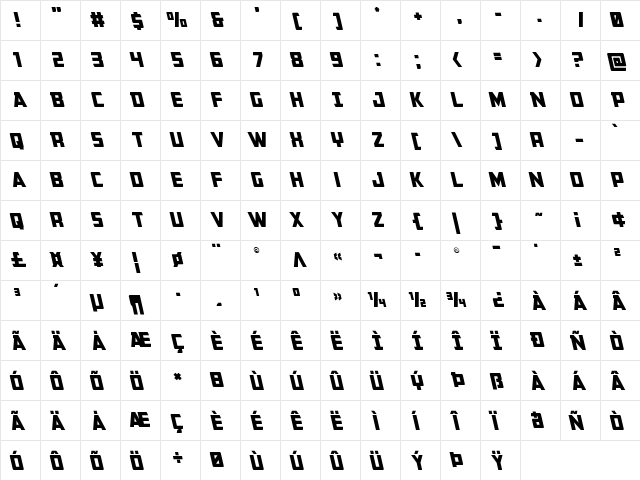
Buchanan Leftalic Italic
Design Context for Buchanan Leftalic Typeface
Buchanan Leftalic is a composed and adaptable typeface that performs quietly and consistently across a wide range of design contexts. The slanted form adds forward momentum and visual energy.
Pro Tip: Try Buchanan Leftalic for annotation and caption copy alongside an upright companion — the contrast in angle creates a dynamic but ordered typographic system.